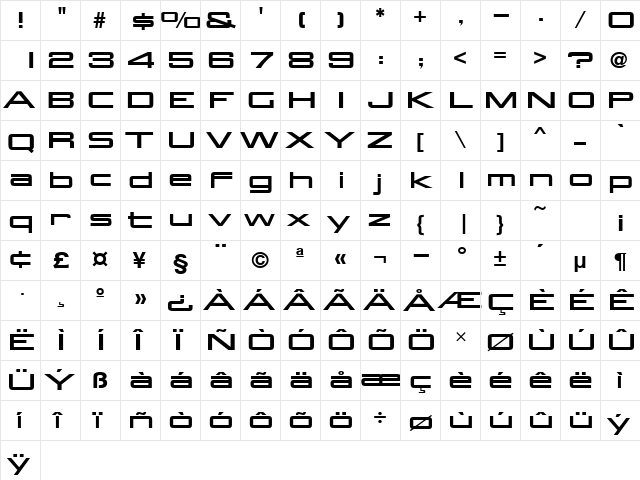
AggieURWTNor Regular Font Preview
AggieURWTNor Regular
Design Context for AggieURWTNor Typeface
AggieURWTNor takes a measured approach to typography — its balanced proportions and neutral character make it a reliable workhorse for both digital and print work.